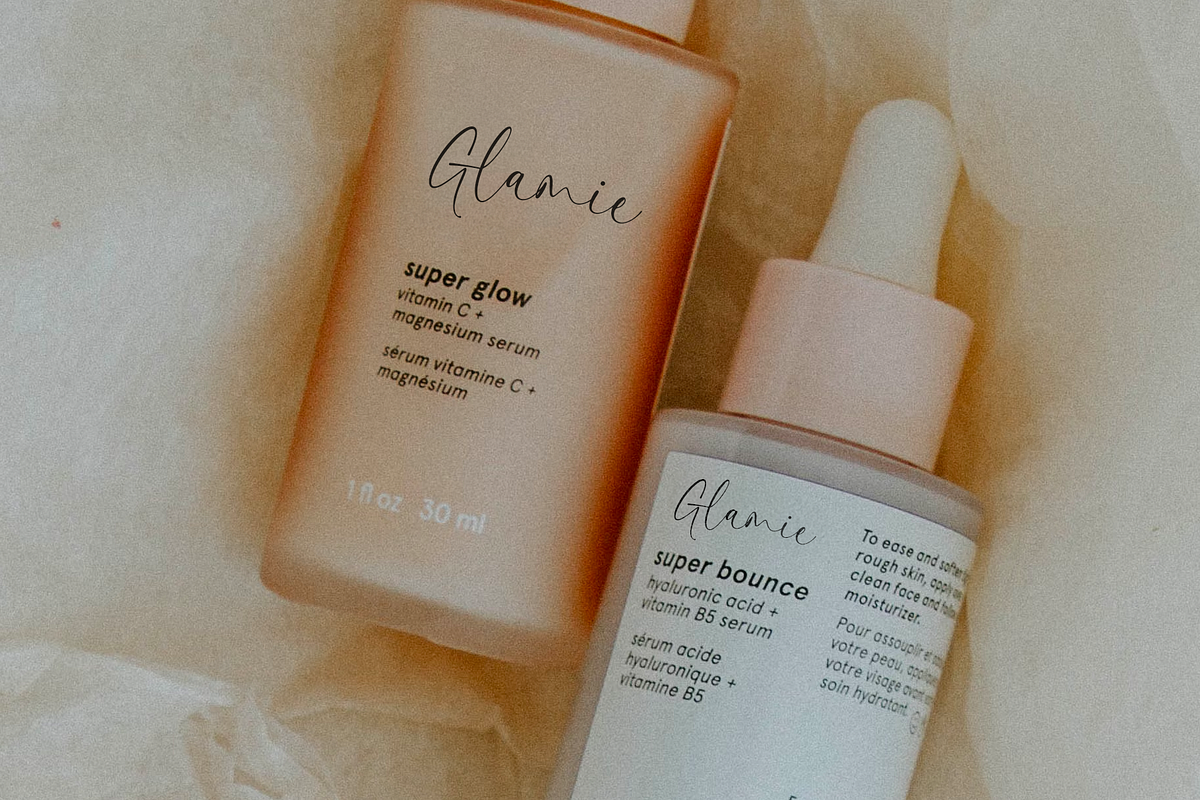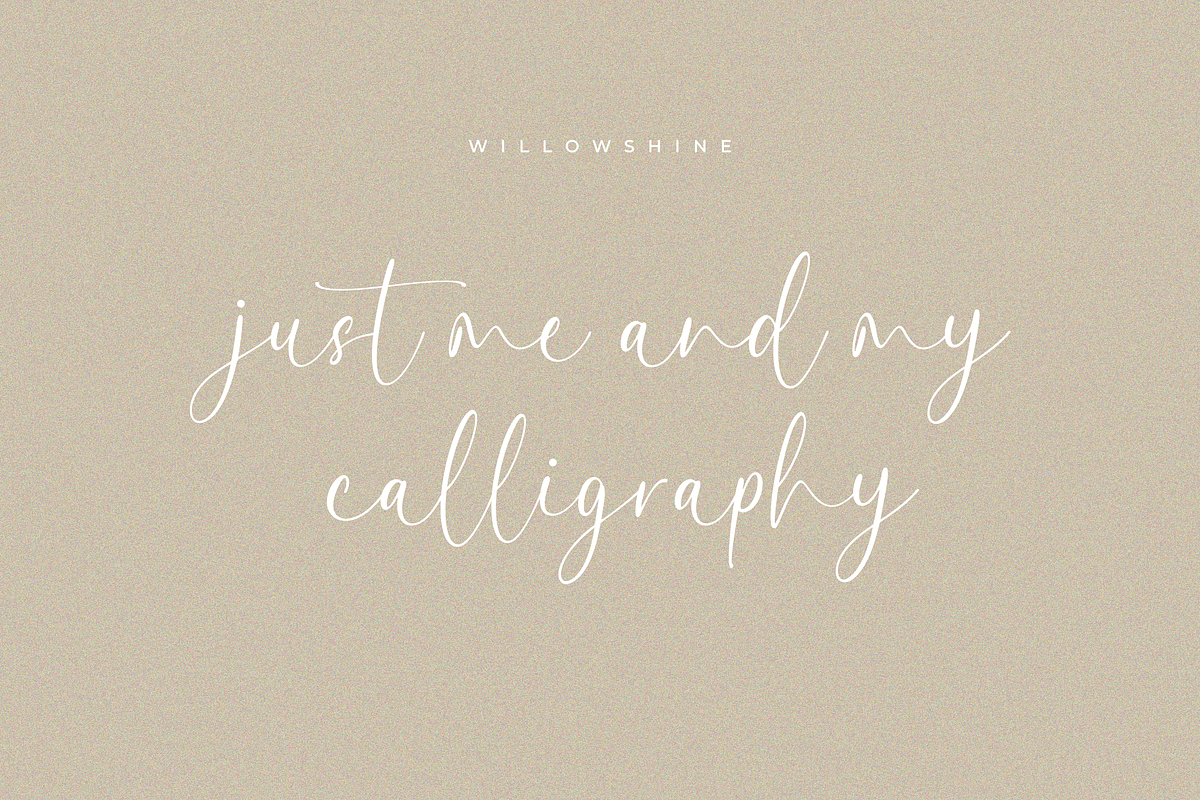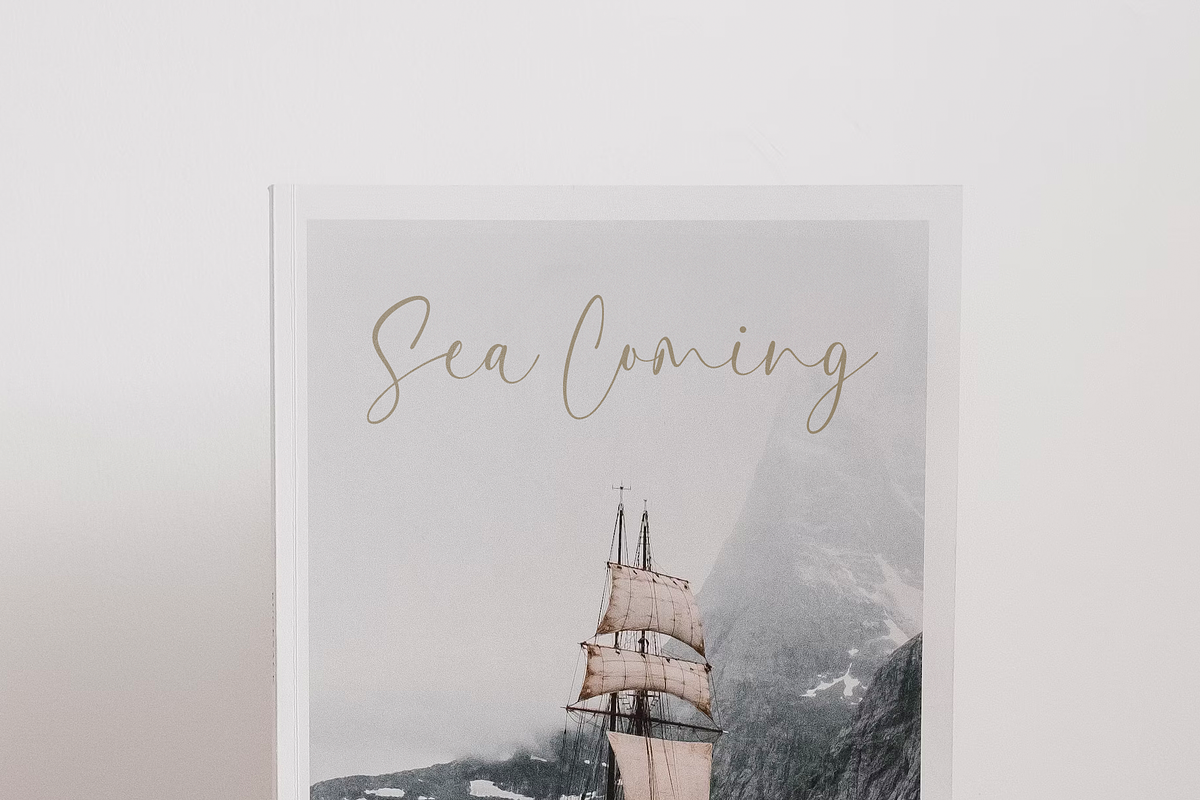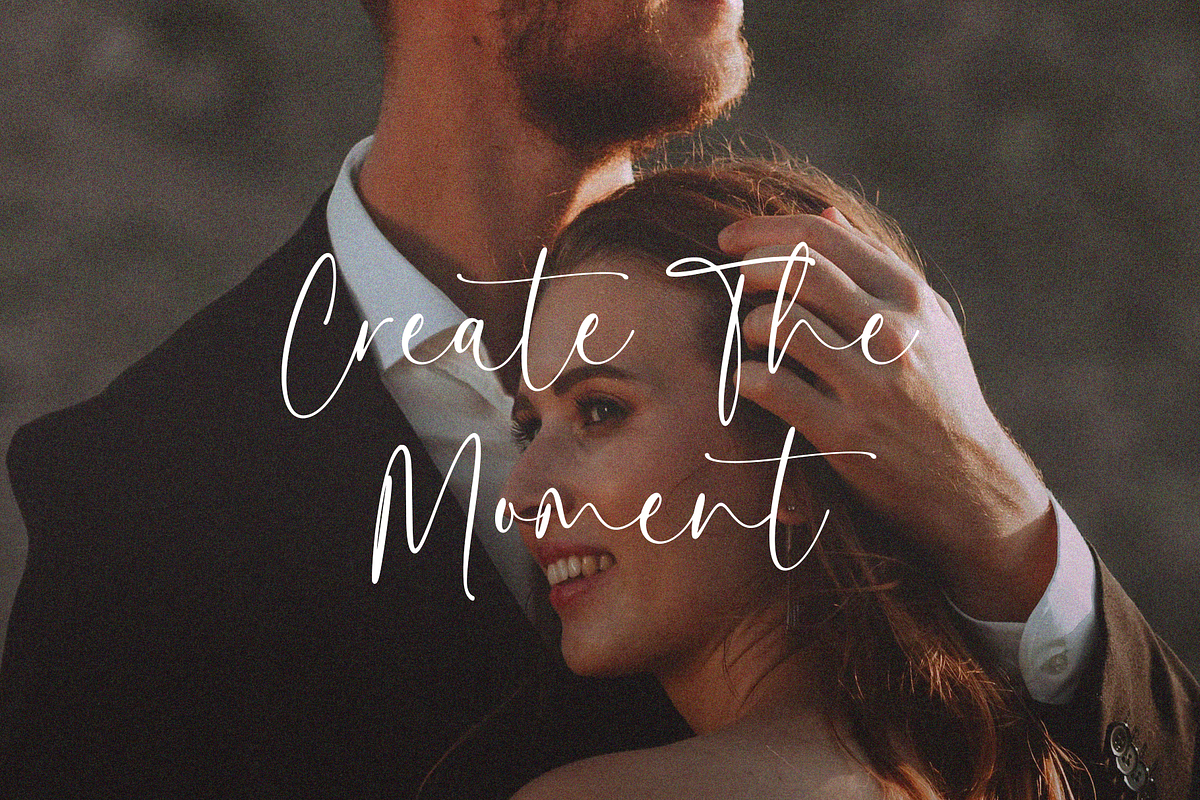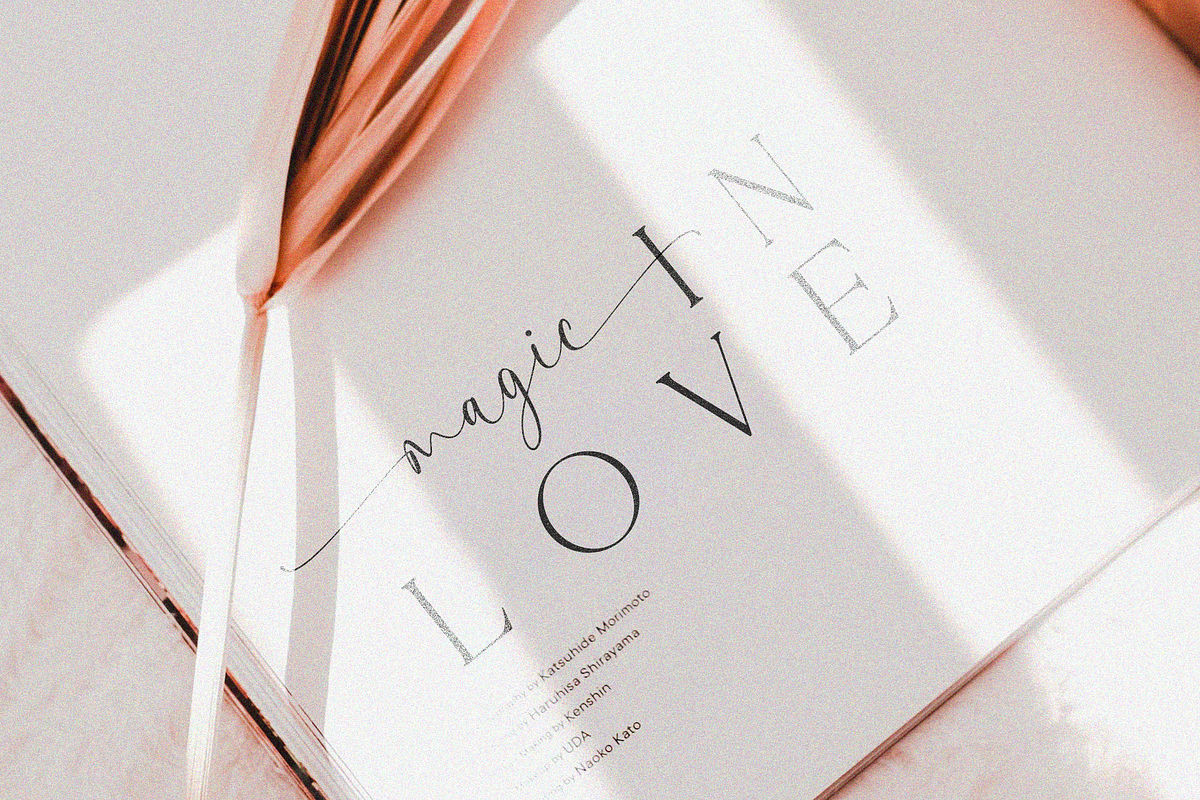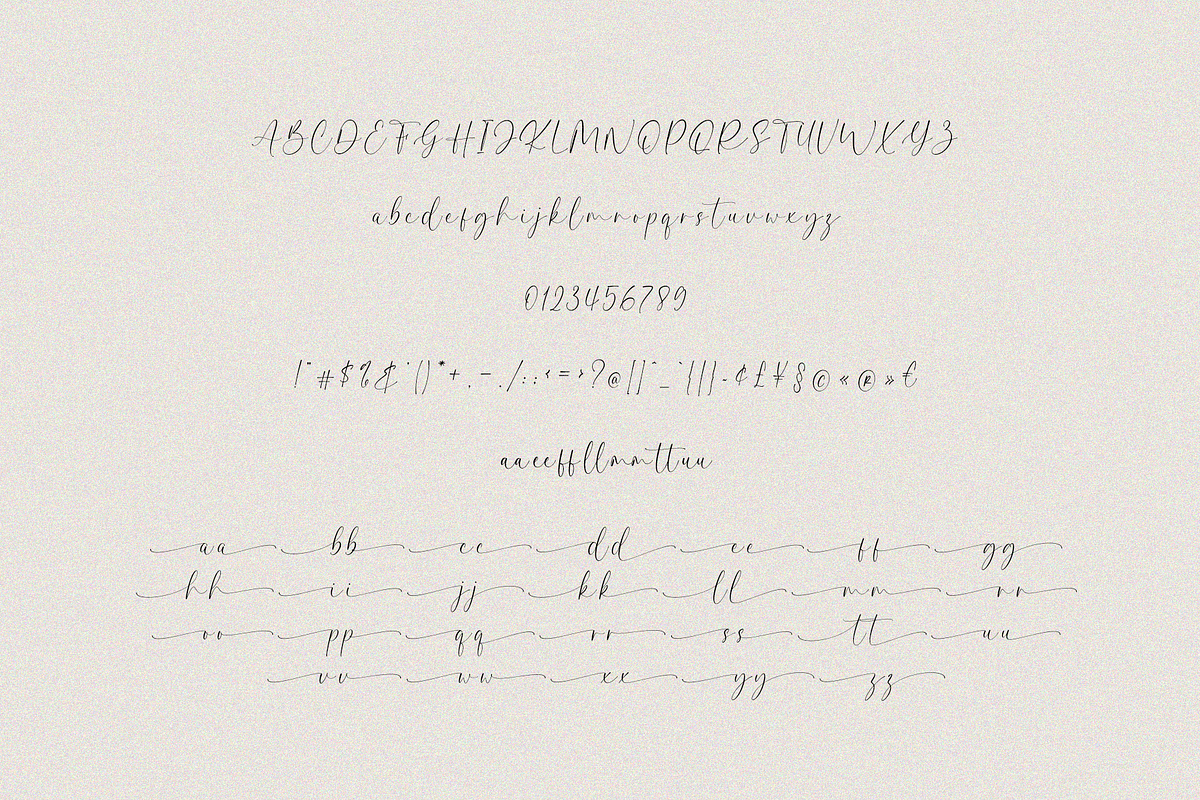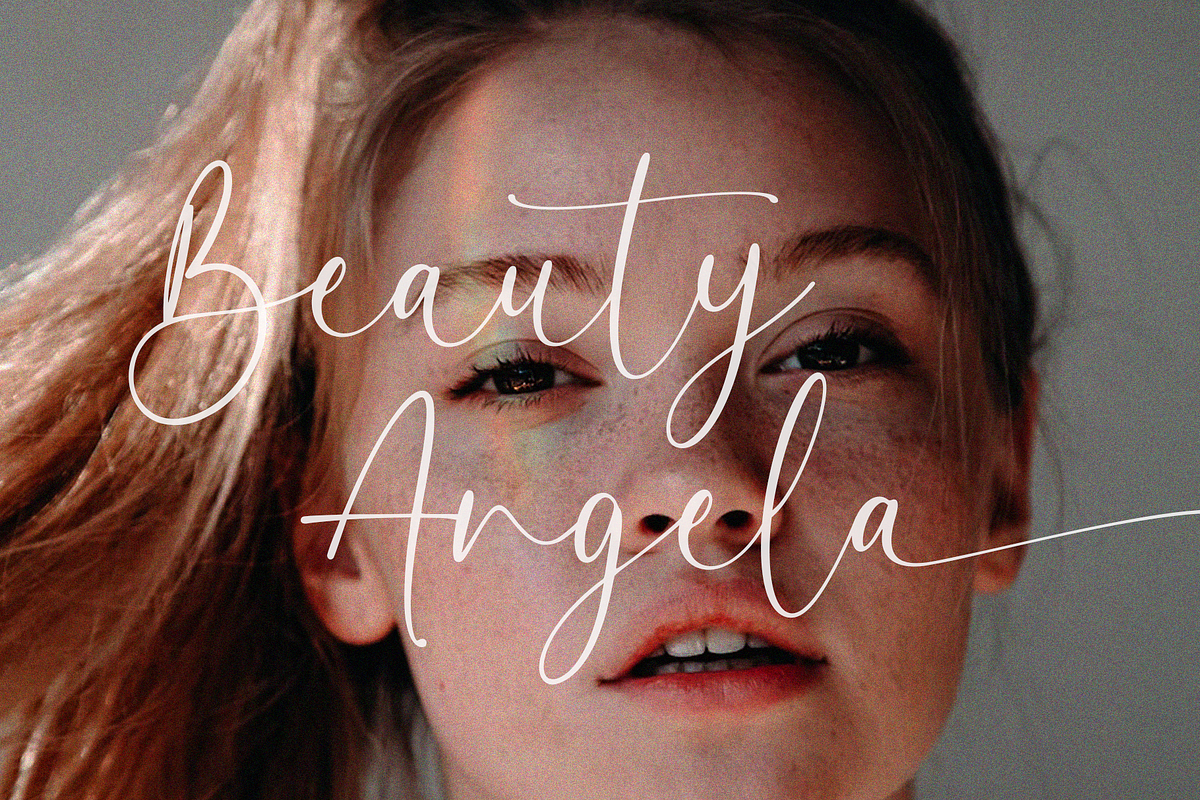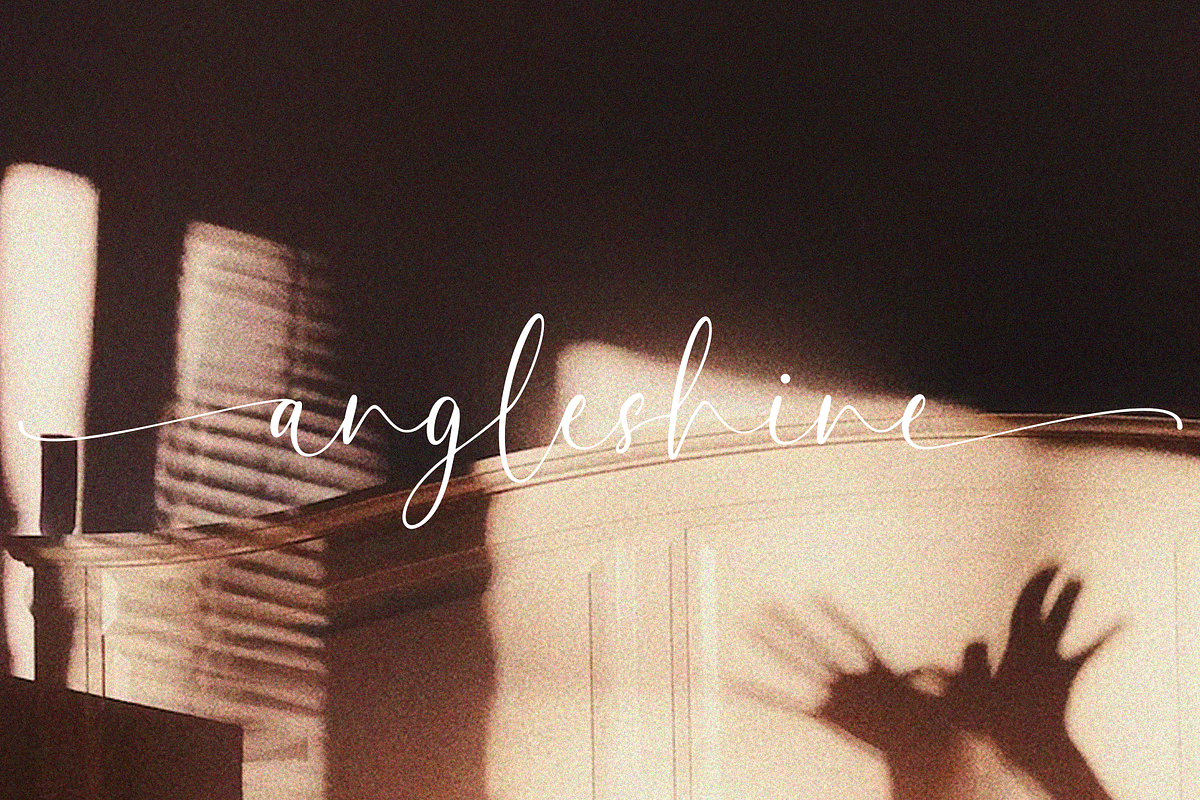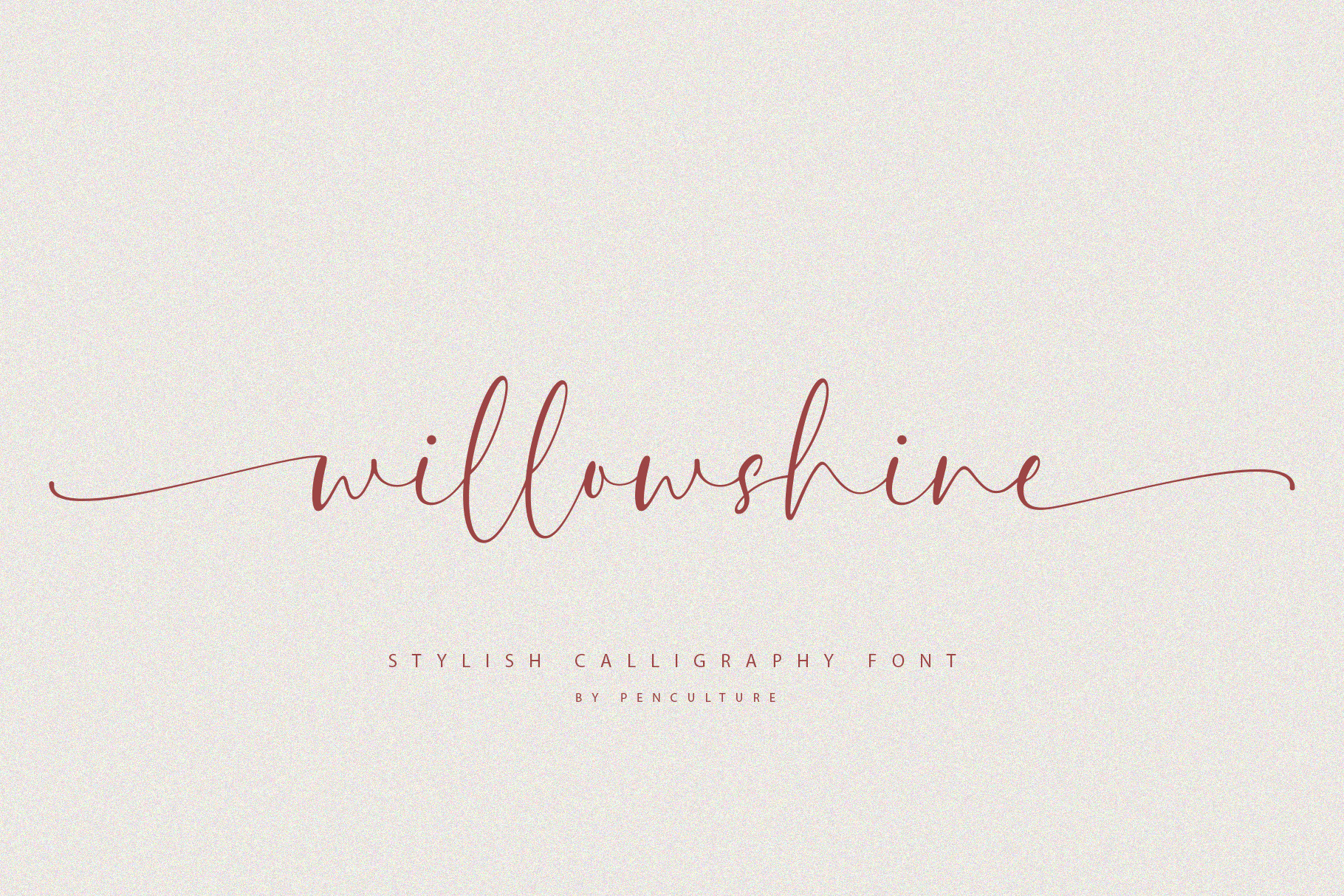
Willowshine Calligraphy Font
Proudly present "Willowshine - A Stylish Calligraphy Font"
Willowshine is a modern and stylish calligraphy font that come with authentic beginning and ending swashes, this font perfect for wedding invitation, branding and many more. This font also has a smooth curve that make this font joyful.
- Fully uppercase and lowercase
- Number and punctuation
- Beginning and ending swashes